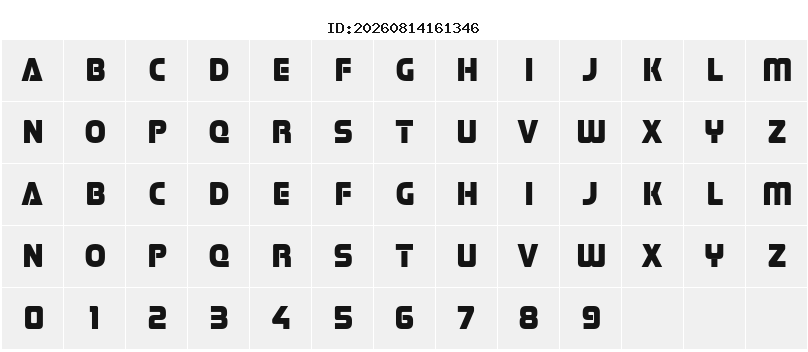
Stormfaze Preview
• Font Name: Stormfaze
• Designer: Ray Larabie
Stormfaze.ttf is a modern, elegant sans-serif font designed for ultimate readability and visual harmony. Perfect for branding, headlines, web design, and print materials.